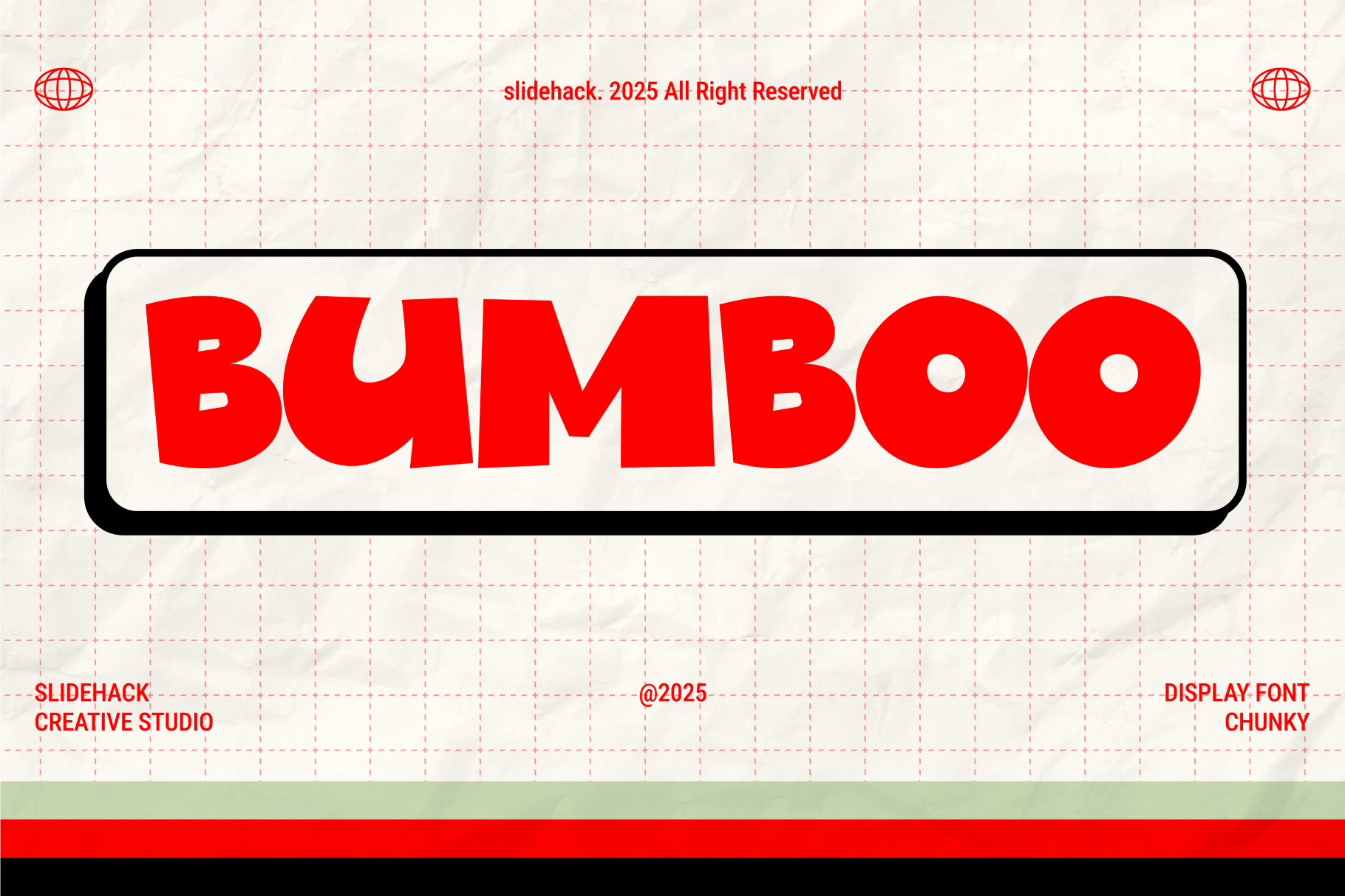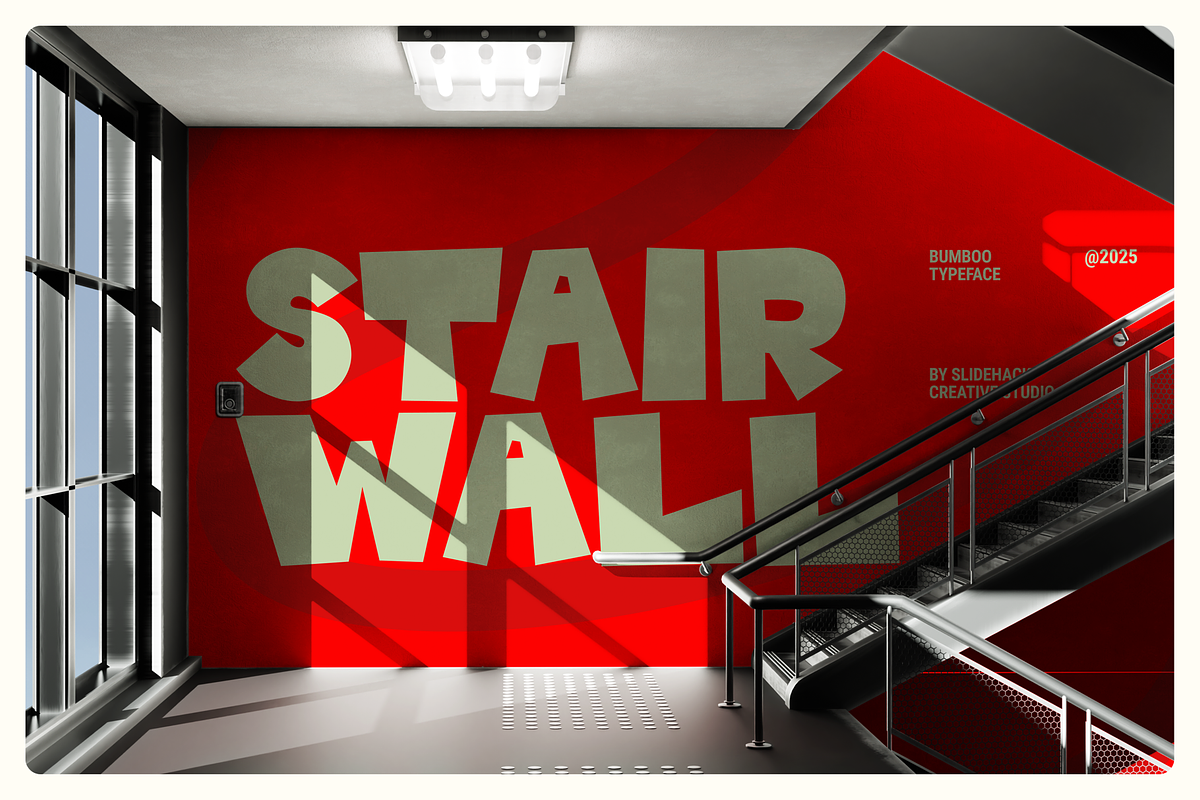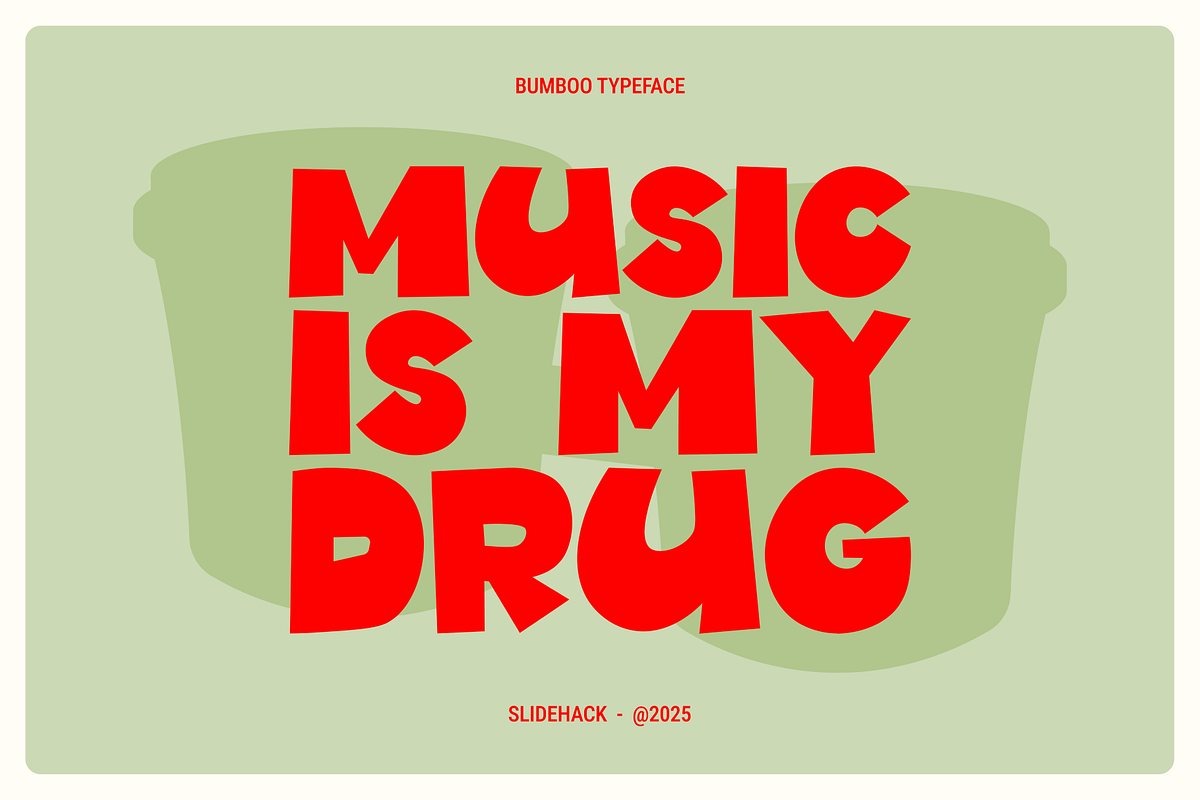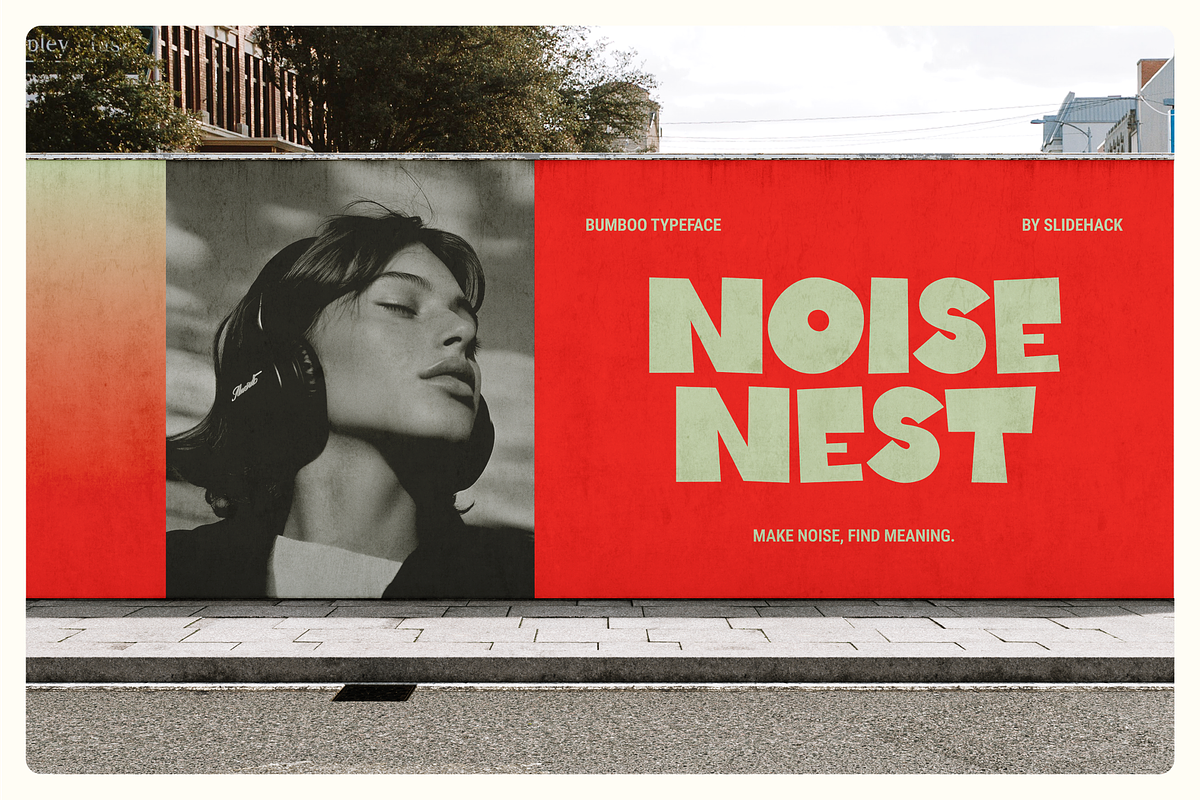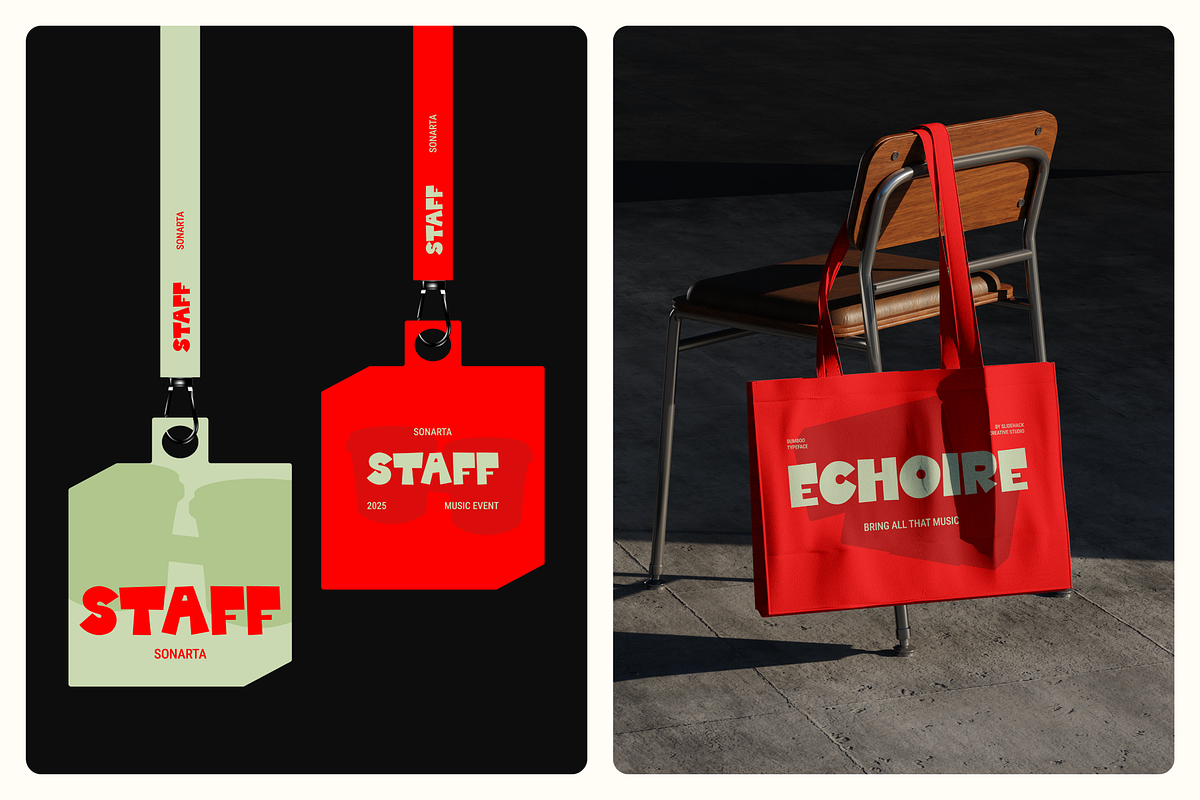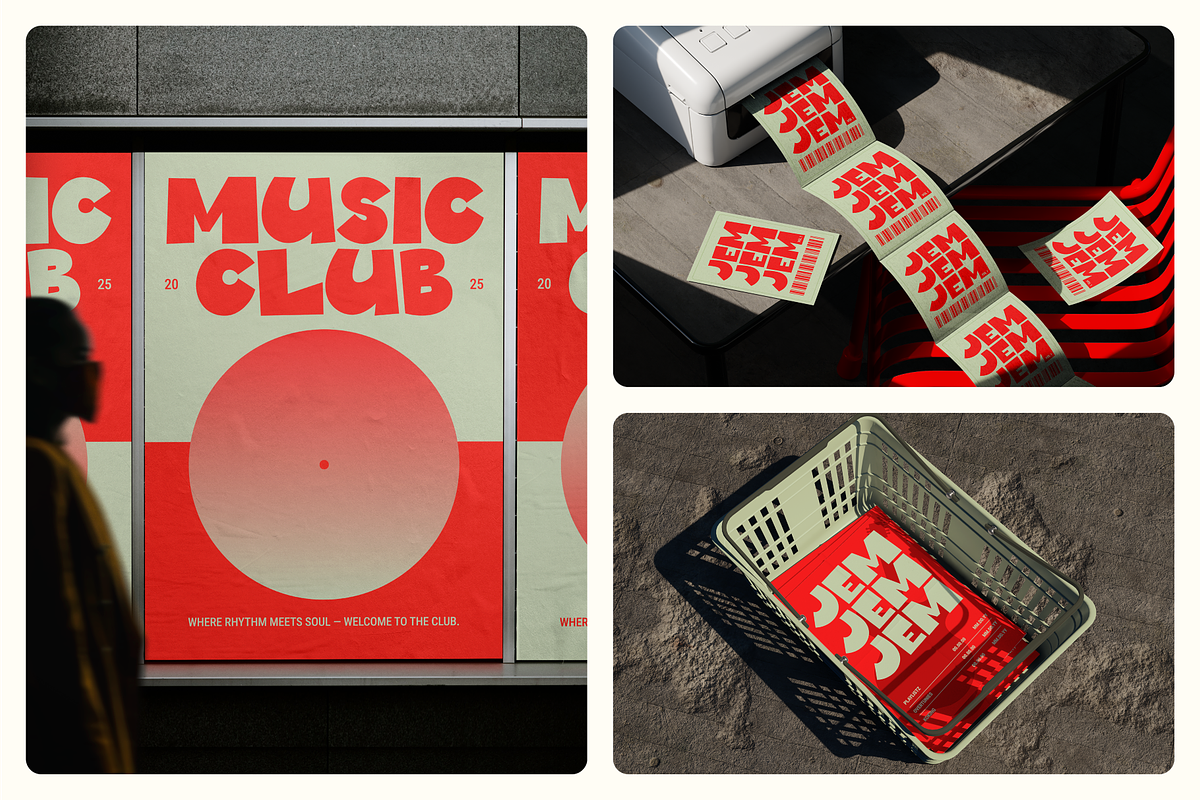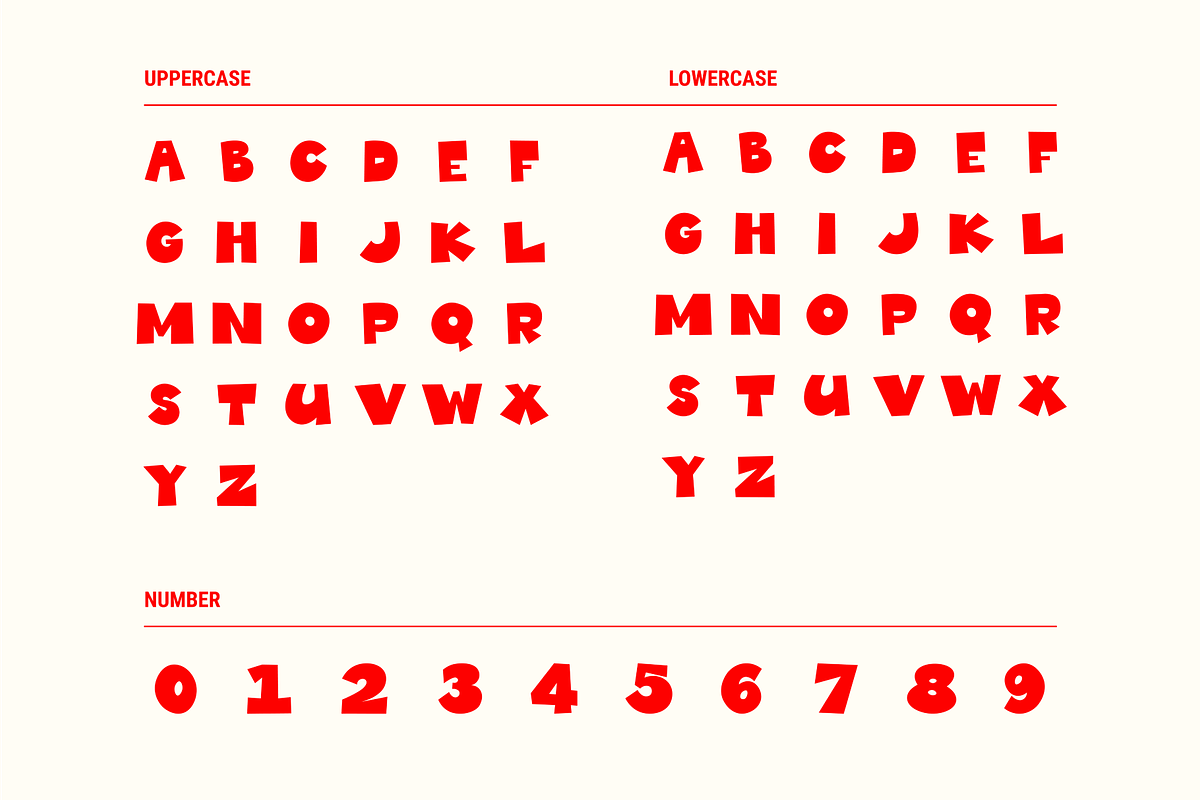
Bumboo - Bold Display Font
Bumboo is a quirky and bold display font that commands attention. Inspired by organic, bamboo-like shapes, its chunky letters and unique curves bring a fun, modern, and friendly vibe to your projects. Perfect for logos, posters, packaging, and social media headlines that require a playful energy to stand out.